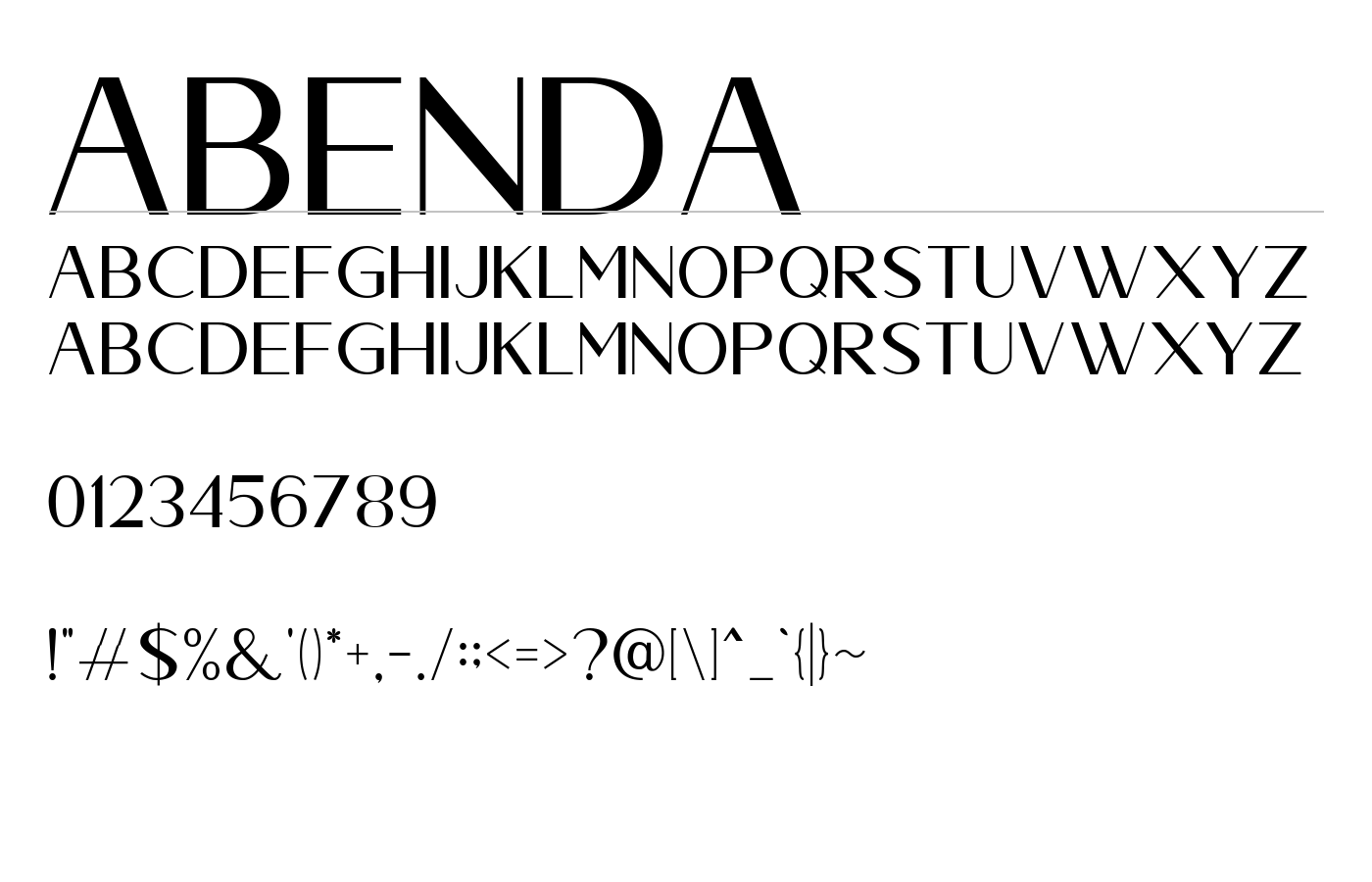
Abenda is an elegant serif font with a modern, high-contrast design that combines thin, sharp strokes with subtle curves, giving it a sophisticated and refined appearance. Its tall x-height and sleek letterforms make it perfect for luxury branding, fashion editorials, and stylish headlines where clarity and elegance are essential. This font works beautifully in upscale print and digital projects seeking a contemporary yet timeless aesthetic.
Abenda Font
About Abenda Font